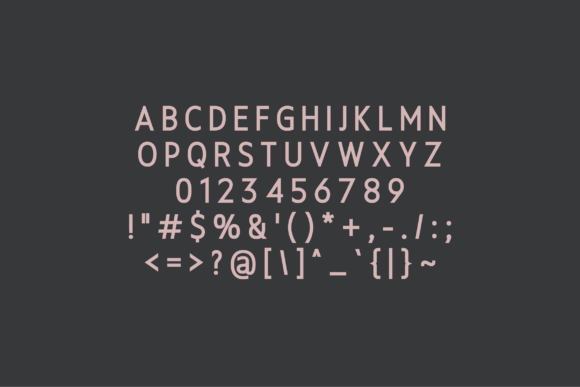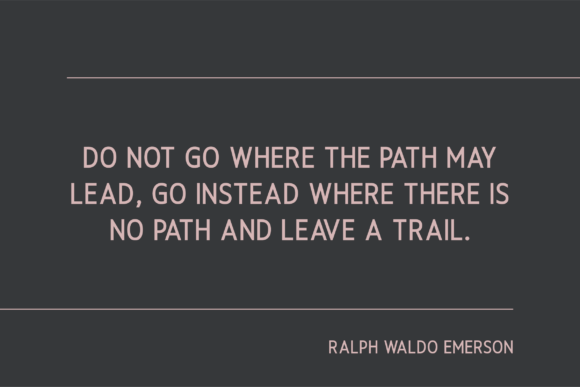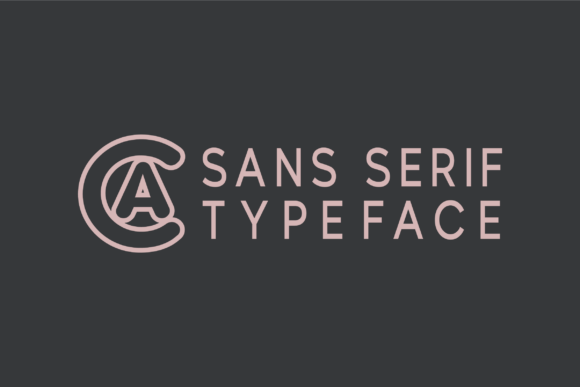
Introduction to Marvouse Font
As a designer, there’s nothing quite like the rush of finding the perfect font for a creative project. It’s like stumbling upon a hidden treasure – one that elevates your entire design and makes it truly shine. And that’s exactly what I want to share with you today: the incredible Marvouse Font. This modern, classy sans serif typeface is more than just a pretty face; it’s a valuable resource for designers looking to add a touch of sophistication to their work.
Whether you’re working on a high-end logo, a romantic wedding invitation, or a trendy advertisement, Marvouse Font is the perfect companion. With its transparent background and high-quality design, it’s a free download that’s sure to become a staple in your design arsenal. In this article, we’ll delve into the world of Marvouse Font and explore its endless possibilities.
Key Features of Marvouse Font
- High-quality design resource ideal for creative projects, with a unique and modern aesthetic.
- Available in a transparent background option, allowing for seamless integration into various design elements.
- Features a high-resolution design, with a minimum resolution of 300 DPI, ensuring crisp and clear typography.
- Designed to be highly legible and versatile, making it suitable for a wide range of creative projects and applications.
- Supports multiple languages, making it a great choice for international design projects and collaborations.
Honest Review: Marvouse Font
I recently stumbled upon the Marvouse Font, and I have to say, it’s been a game-changer for my creative projects. As a designer, I’m always on the lookout for high-quality design resources that can elevate my work. The Marvouse Font definitely delivers.
- ✨ High-quality design: The Marvouse Font has a sleek, modern design that’s perfect for any project, from logos to business cards.
- ✨ Transparent background: I appreciate that the font has a transparent background, making it easy to layer and customize.
While the Marvouse Font is an excellent addition to any design arsenal, there are a few limitations to be aware of:
- ⚠️ Limited character set: The font only includes a limited set of characters, which may not be suitable for complex projects.
- ⚠️ No bold or italic options: If you’re looking for bold or italic variations, you may need to look elsewhere.
Overall, I’m impressed with the Marvouse Font, and I’d definitely recommend it to fellow designers. Its high quality, transparent background, and free download make it a valuable resource for any creative project.
Marvouse Font is perfect for a variety of creative projects, including logos, brochures, business cards, and presentations. Its high-quality design and transparent background make it a great choice for designers who want to add a touch of sophistication to their work.